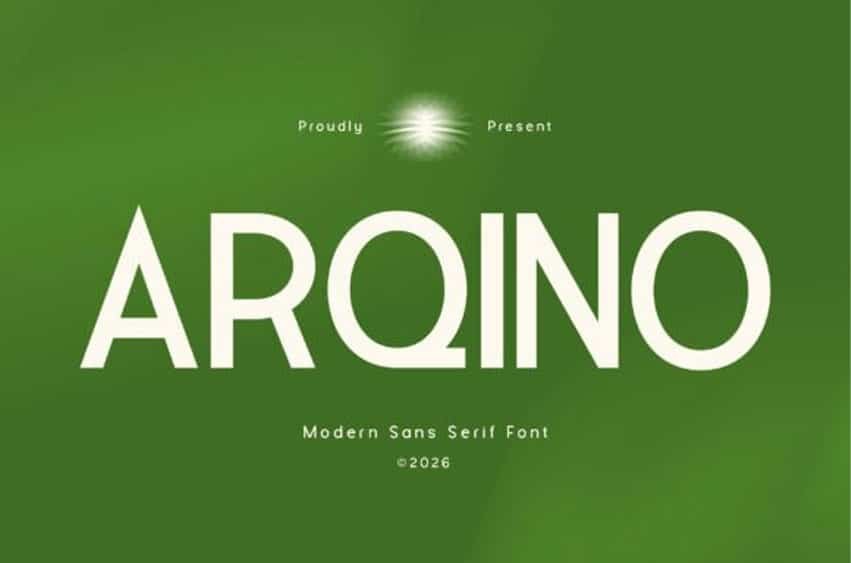
Arqino Font is a modern sans serif font designed to celebrate the beauty of simplicity through clean geometry, balanced proportions, and timeless elegance.
Every letter is carefully refined to create a sleek and contemporary appearance that feels professional, versatile, and effortlessly stylish.
With its minimalist personality and exceptional readability, Arqino becomes the perfect foundation for designs that demand clarity without sacrificing character.